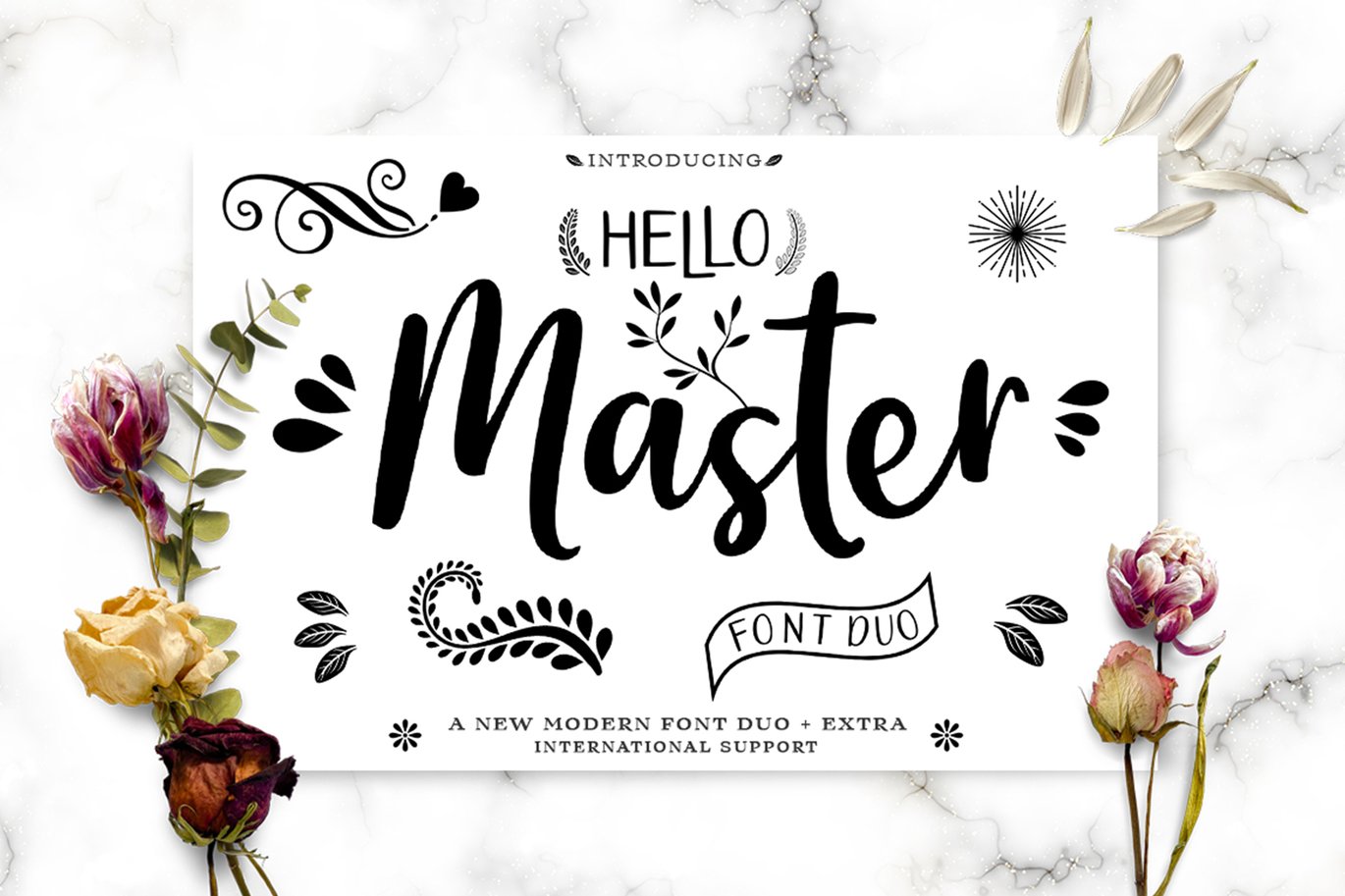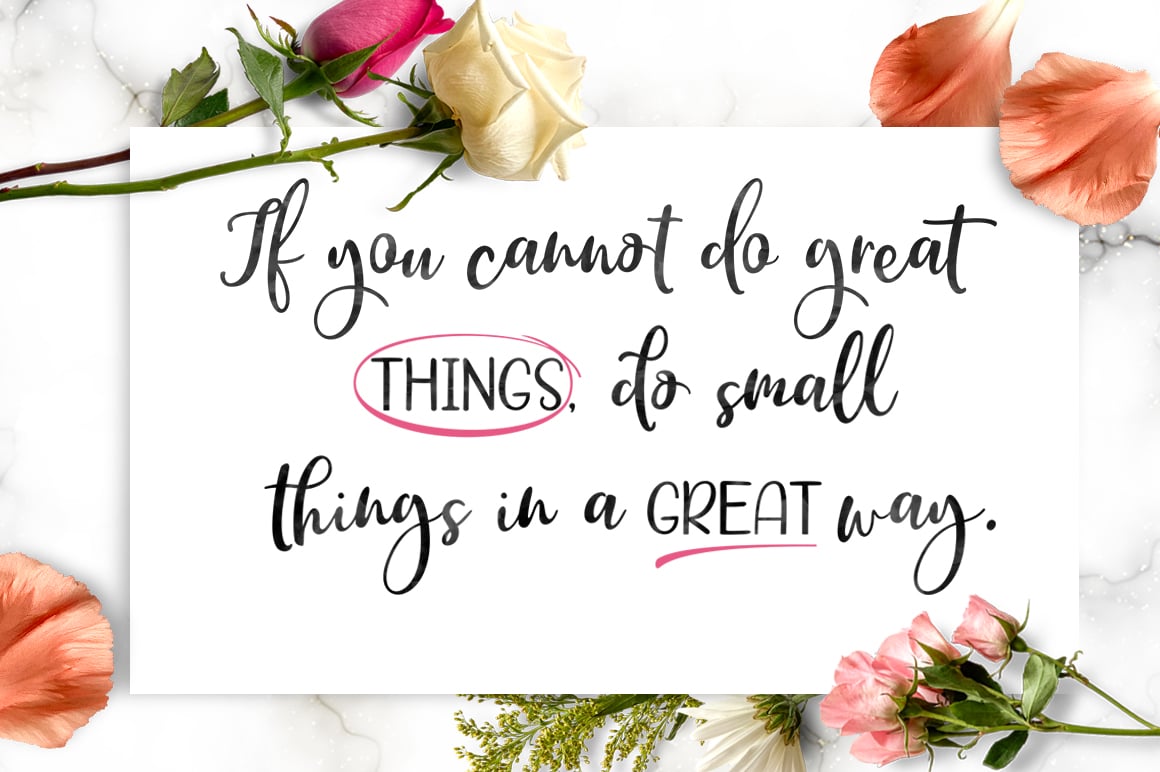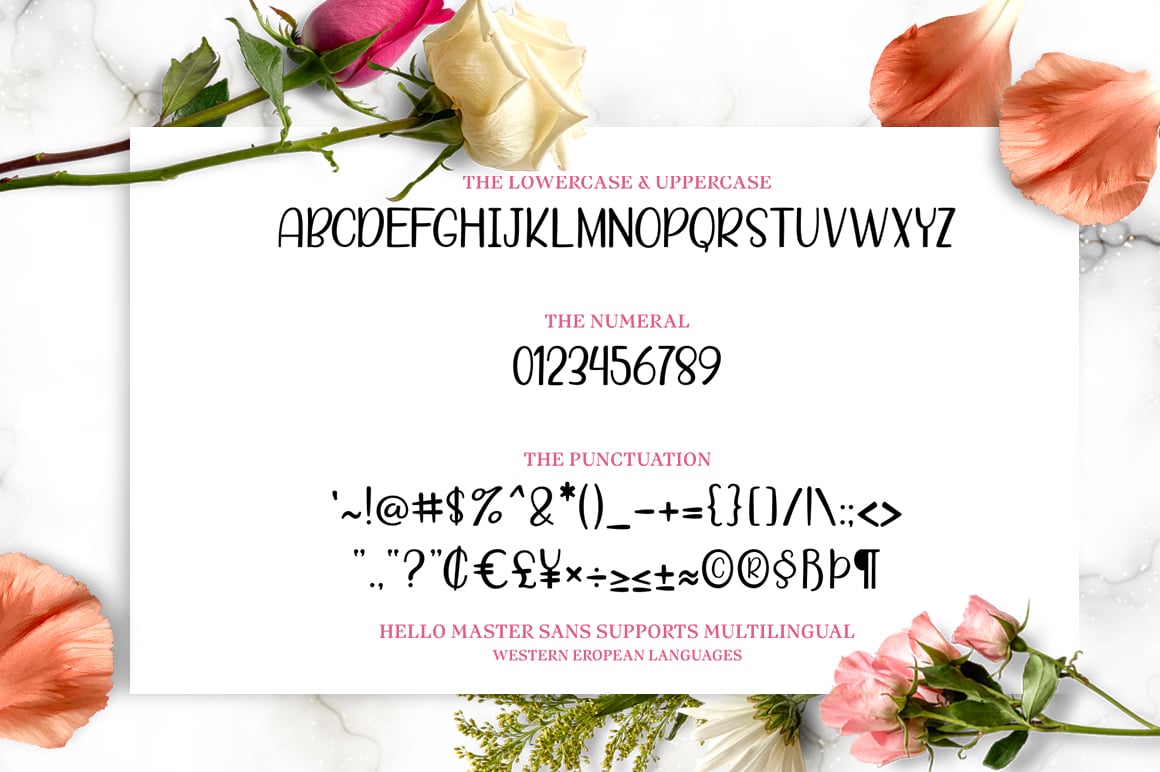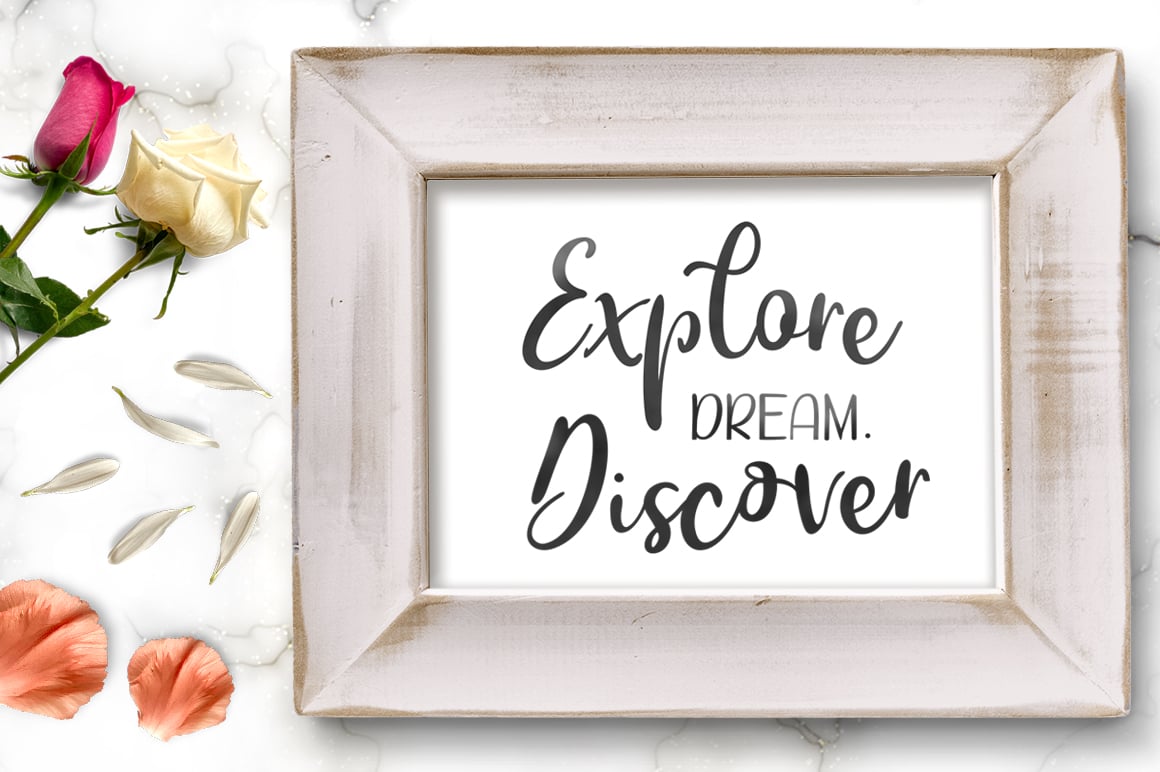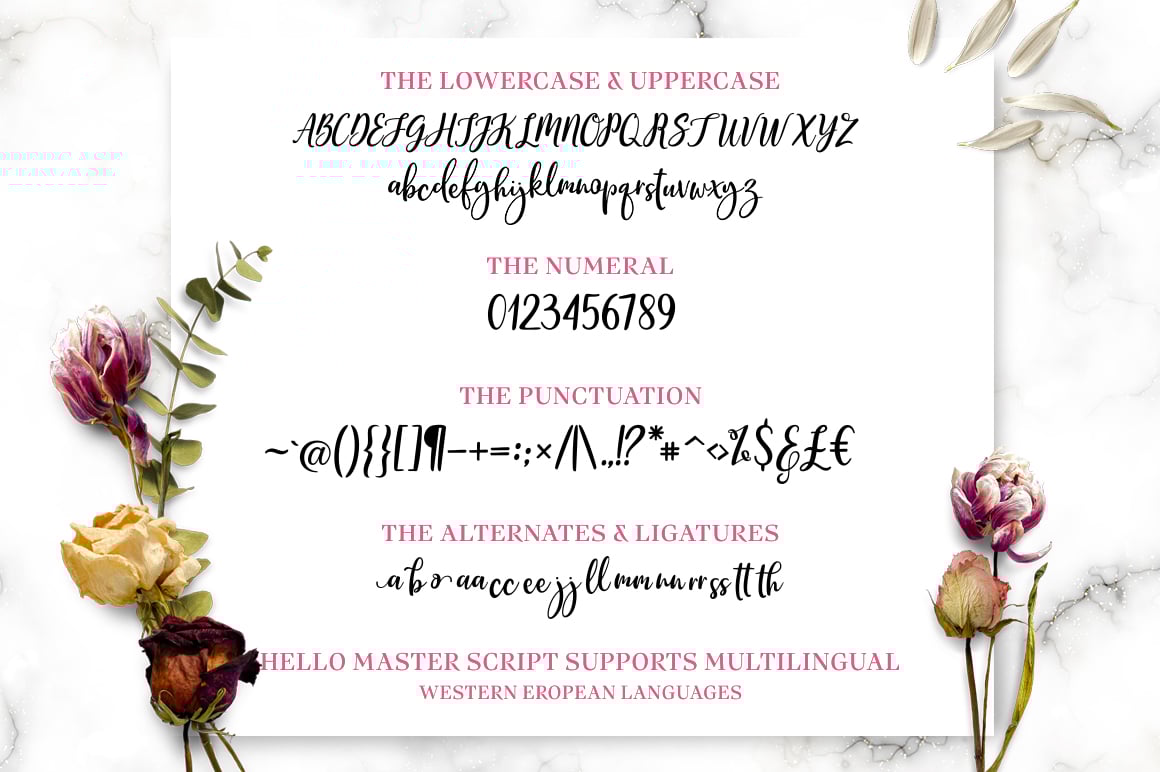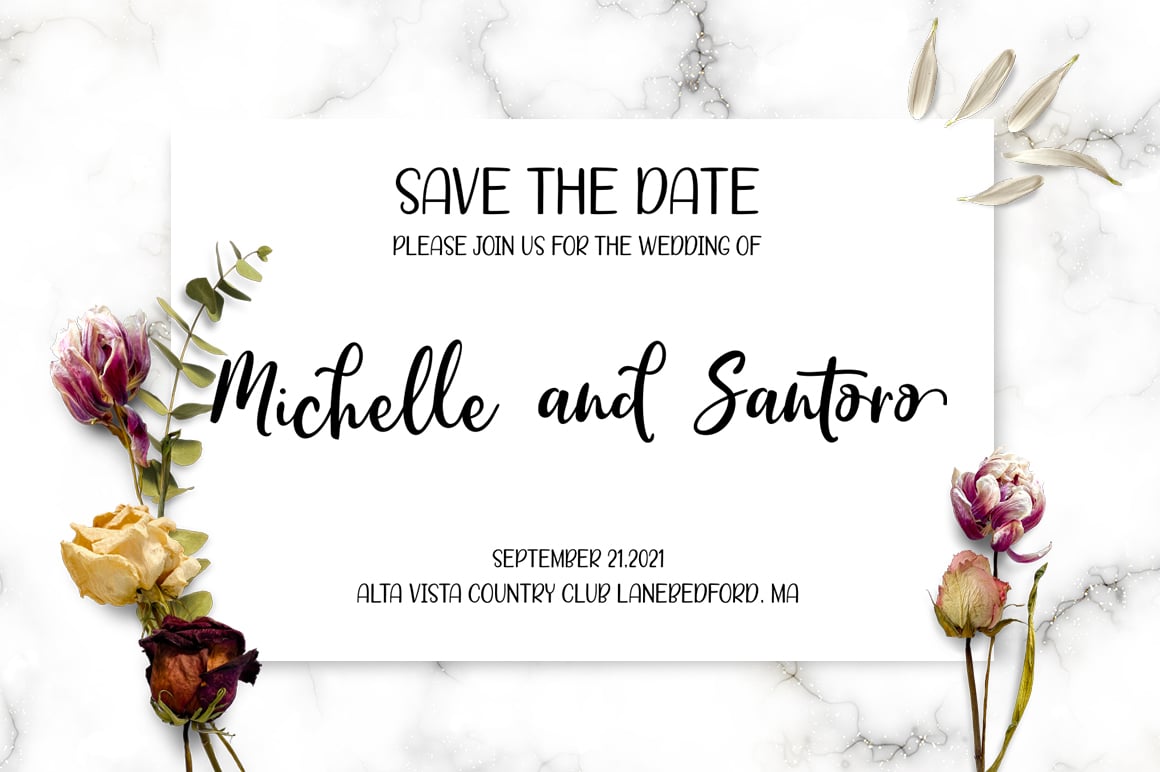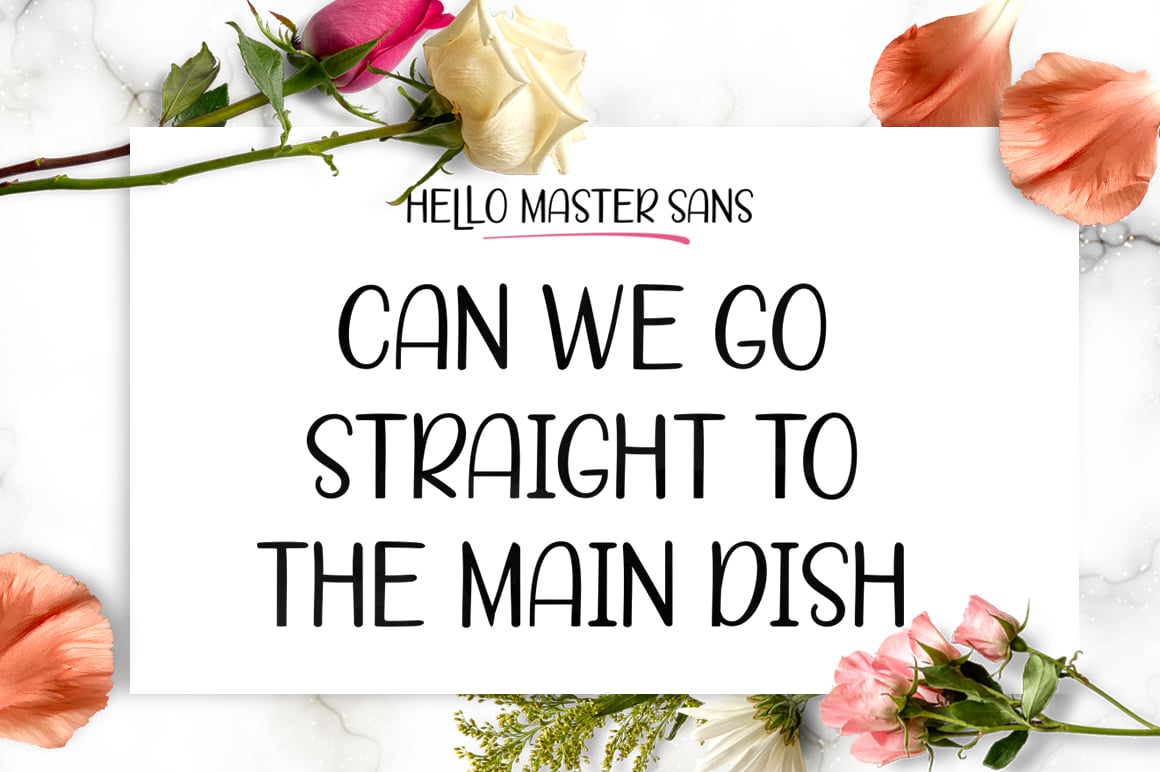
Hello Master Script Font DUO
Hello Master Script This type is a new modern script font with an irregular base line. Trendy and feminine style. Hello Master Script Font DUO looks beautiful in wedding invitations, thank you cards, quotes, greeting cards, logos, business cards, and more. Perfect for use in ink or watercolors. Including beginning and end letters, alternatives and support for many languages.